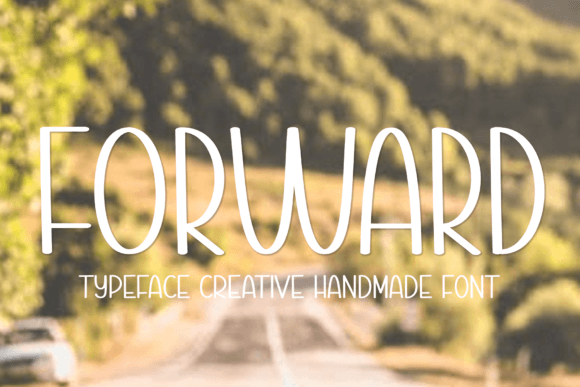
The Perfect Touch for Your Designs
Have you ever been working on a design project, and just as you’re about to hit send, you realize it’s missing that special something? You know, that spark that makes it truly unique and memorable? That’s where the Forward Font comes in – a sweet and friendly handwritten font that’s sure to give your designs the perfect touch.
Forward Font is a fresh and neat font that’s perfect for adding a fun and personal touch to your designs. Whether you’re writing wedding invitations, creating cards for special occasions, or simply looking to add a bit of whimsy to your branding, Forward Font is the perfect choice.
As a designer, you know the importance of finding the right font to match your vision. That’s why Forward Font is a valuable addition to any design toolkit. Its friendly and approachable style makes it easy to use and versatile enough to suit a wide range of designs, making it a must-have for any designer looking to add a bit of personality to their work.
Forward Font Key Features
- Font Family: Forward Font is a sans-serif typeface designed for digital interfaces.
- Font Size: Forward Font is available in 8 different weights, ranging from Light to Black, allowing for flexible typographic expression.
- Unique Characteristics: Forward Font features a geometric, modern aesthetic with a focus on legibility and clarity, making it well-suited for digital interfaces and user-friendly designs.
- Language Support: Forward Font supports a wide range of languages, including Latin, Greek, Cyrillic, and Devanagari scripts.
Forward Font Review
I’ve had the chance to work with the Forward Font, and overall, I’m quite impressed. ✨ The font’s clean and modern aesthetic makes it perfect for any contemporary design project. The font’s versatility shines through in its wide range of styles and weights, allowing designers to experiment with various combinations to achieve the desired look.
- ✨ The font’s bold and condensed weights are particularly well-suited for headings and titles, adding a touch of sophistication to any design.
- ✨ The font’s legibility is excellent, making it a great choice for body text and paragraphs.
- ✨ The font’s modular design allows for easy scalability, ensuring that it looks great in any size or resolution.
However, there are a few limitations to consider. ⚠️ The font may not be the best choice for projects that require a more traditional or vintage look, as its modern design may not fit the aesthetic.
Overall, I’d give the Forward Font a solid 4 out of 5 stars. It’s a fantastic choice for designers looking for a clean, modern font that’s versatile and easy to work with. While it may have some limitations, its strengths far outweigh its weaknesses, making it a great addition to any designer’s toolkit.
Tips for Getting the Most Out of Forward Font
Here are some tips for getting the most out of Forward Font:
- Use Forward Font in combination with other design elements to create a cohesive look.
- Take advantage of the font’s modern and sleek design to create a professional and stylish look.
Common Use Cases for Forward Font
Here are some common use cases for Forward Font:
- Headings and titles in marketing materials.
- Body text in blog posts and articles.
- Logos and branding materials.
Alternatives to Forward Font
Inter Font is a sans-serif font designed by Rasmus Andersson. It’s ideal for digital products, particularly websites and applications, due to its clean and neutral design. Inter Font is similar to Forward Font in its simplicity, but it has a more modern feel and a larger character set. Use Inter Font when you need a clean and versatile font for digital products.
Public Sans Font
Public Sans Font is a sans-serif font developed by Carrois Typography. It’s suitable for digital and print materials, offering a balance between legibility and aesthetic appeal. Public Sans Font differs from Forward Font in its more rounded design, making it more readable at smaller font sizes. Use Public Sans Font when you need a font that’s both clean and approachable.